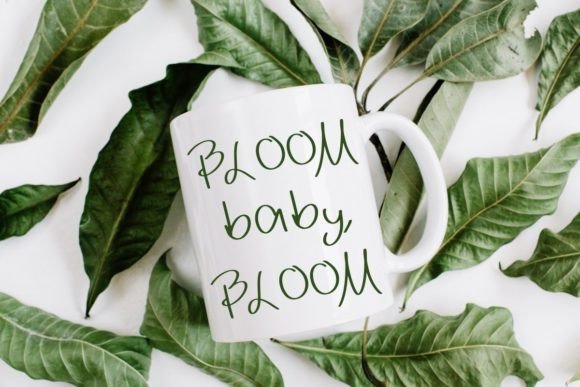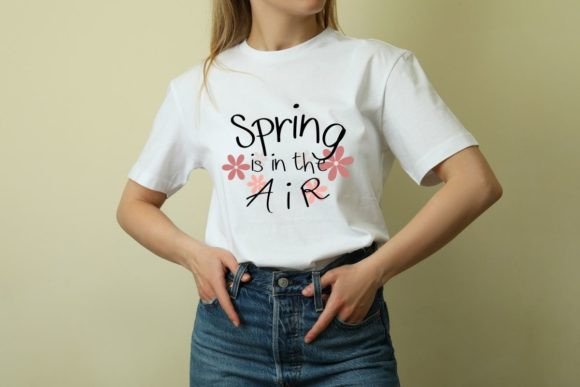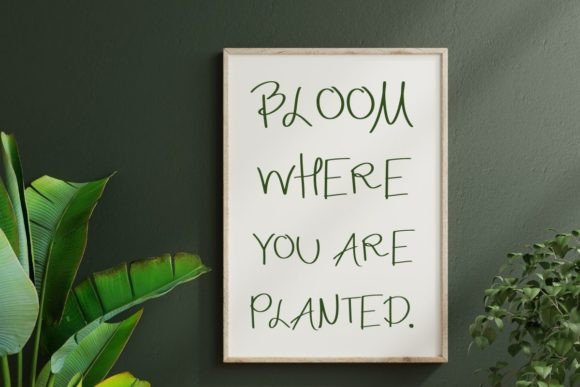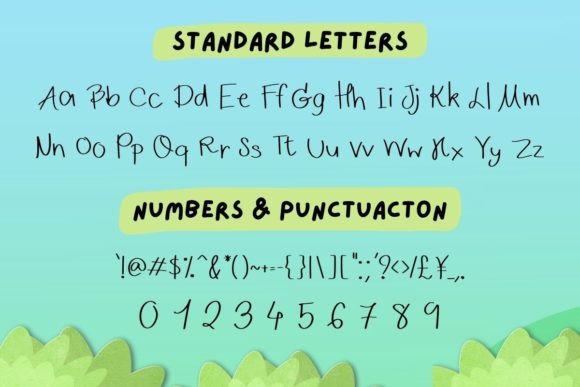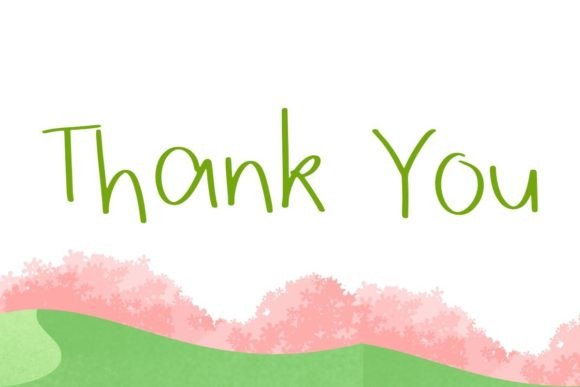
The Perfect Addition to Your Font Library: Bloom Font
Enter the Bloom Font, a quirky and fun handwritten font that’s sure to add a personal touch to any creation. Whether you’re designing a logo, a social media post, or a marketing campaign, this font has the potential to elevate your work and make it stand out from the crowd.
What makes Bloom Font so valuable to designers is its versatility and charm. With its unique, handwritten style, it can add a touch of personality to even the most mundane projects, making it a wonderful asset to any font library.
Bloom Font Key Features
- Unique Characteristics: Bloom Font features a unique, hand-crafted design with subtle imperfections and texture, giving it a natural, organic feel.
Bloom Font Review
Overall, I’m quite impressed with the Bloom Font. It has a beautiful, elegant design that’s perfect for floral or nature-inspired projects. ✨
The font’s script-like feel and intricate details make it a great choice for headings or titles. It’s also surprisingly versatile, working well in both digital and print formats. ✨
Here are some of the things I like about the Bloom Font:
- Unique and elegant design
- Script-like feel that’s perfect for headings or titles
- Good for floral or nature-inspired projects
- Works well in both digital and print formats
- May be too ornate for some designs
- Not ideal for body text or large blocks of text
- May be difficult to read in smaller font sizes
Overall, I think the Bloom Font is a great choice for designers who want to add a touch of elegance and sophistication to their projects. While it may not be suitable for every design, it’s a great option for floral or nature-inspired themes.
Bloom Font Practical Application Guide
Tips for Getting the Most Out of Bloom Font
For the best results, use the Bloom font in a combination with other creative elements, such as illustrations or graphics.
Experiment with different font sizes, colors, and styles to achieve a unique look.
Use the Bloom font for titles, headings, and other emphasis to create visual interest.
The Bloom font is ideal for:
– Creative projects, such as wedding invitations or baby shower designs.
– Branding and marketing materials, such as logos and business cards.
– Social media graphics and advertisements.
Alternatives to Bloom Font for Designers
Great Vibes is a beautiful, elegant script font perfect for creating a sophisticated and high-end feel. It’s ideal for use in luxury branding, high-end fashion, and wedding invitations.
Compared to Bloom Font, Great Vibes has a more refined and polished look, making it suitable for more formal and elegant designs. It’s a great choice when you need a font that exudes luxury and sophistication.
Alex Brush is a hand-drawn script font with a beautiful, handwritten feel. It’s perfect for use in creative projects, such as wedding invitations, baby announcements, and other personal designs.
Compared to Bloom Font, Alex Brush has a more whimsical and playful feel, making it suitable for more creative and artistic designs. It’s a great choice when you need a font that adds a touch of personality to your design.
Yes, Bloom Font is a highly customizable font that supports a wide range of OpenType features, including ligatures, swashes, and contextual alternates. You can also use font editing software to modify the font’s characteristics, such as font weight, font style, and character spacing.